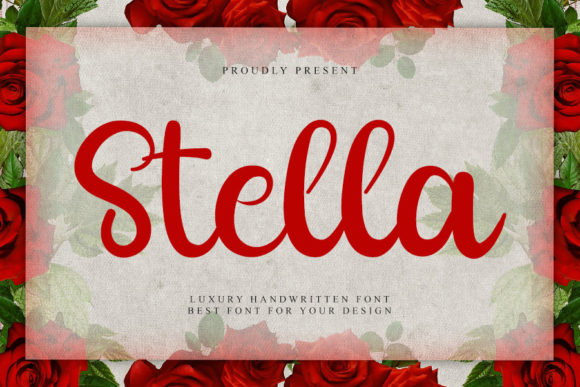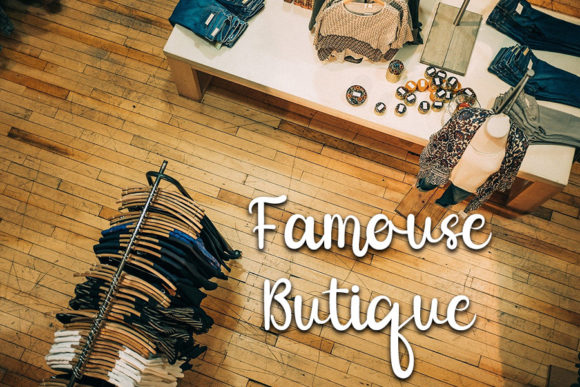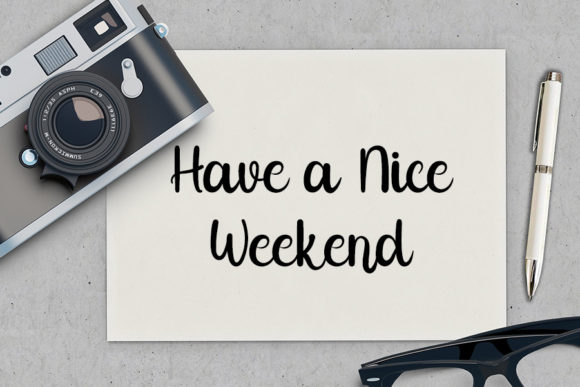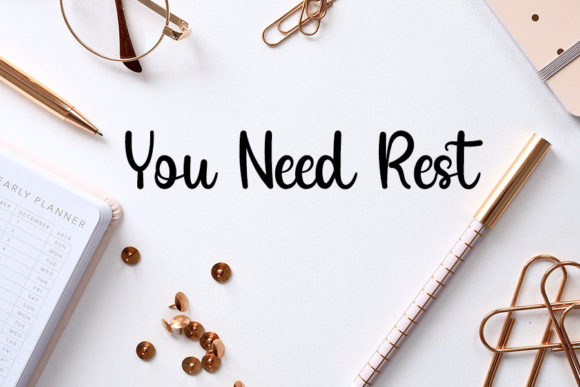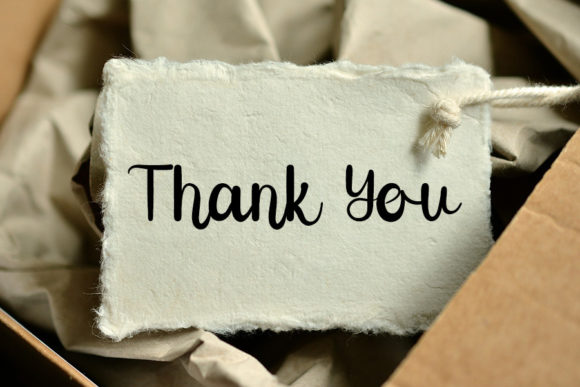
Stella Font
About Stella Font
Stella is a stylish handwritten font with a contemporary atmosphere and impeccable form, inspired by timeless classic calligraphy. Not too thin and not too thick, balanced and varied, this font was designed to enhance the beauty of your projects.